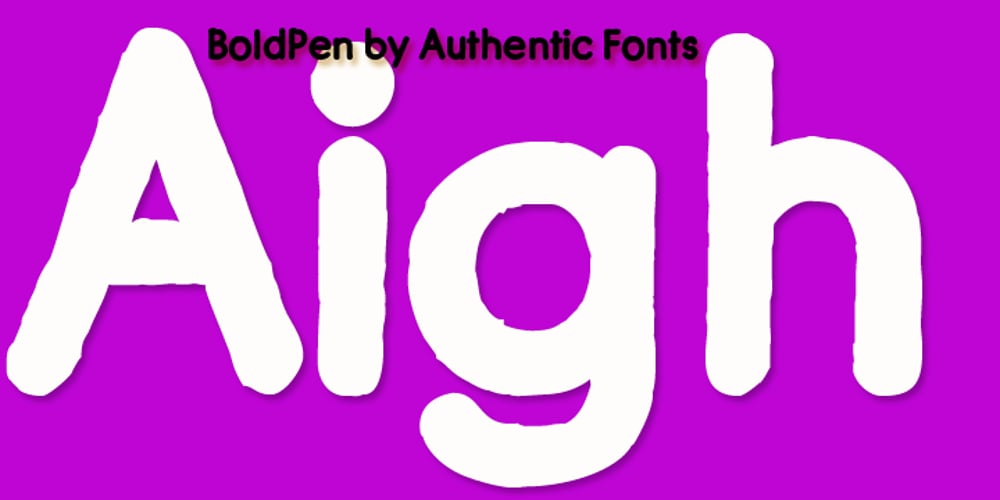
Bold Pen
Bold Pen font
Bold Pen Font Family was designed by Julius Wiescher and published by Authentic. Bold Pen contains 1 styles and family package options. BoldPen is based on an ancestor of the German DIN-Schrift. The font was traced with a plastic template on transparent paper, scanned and worked over carefully to keep the handmade, authentic touch.